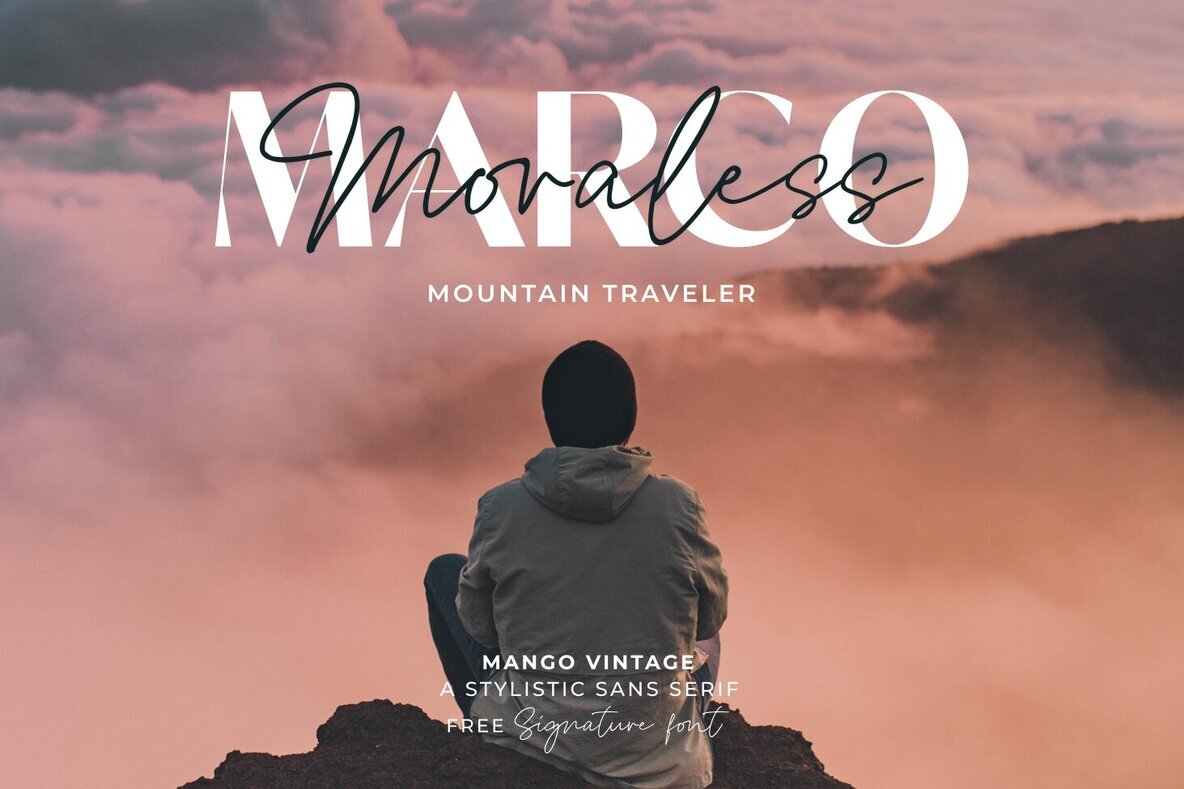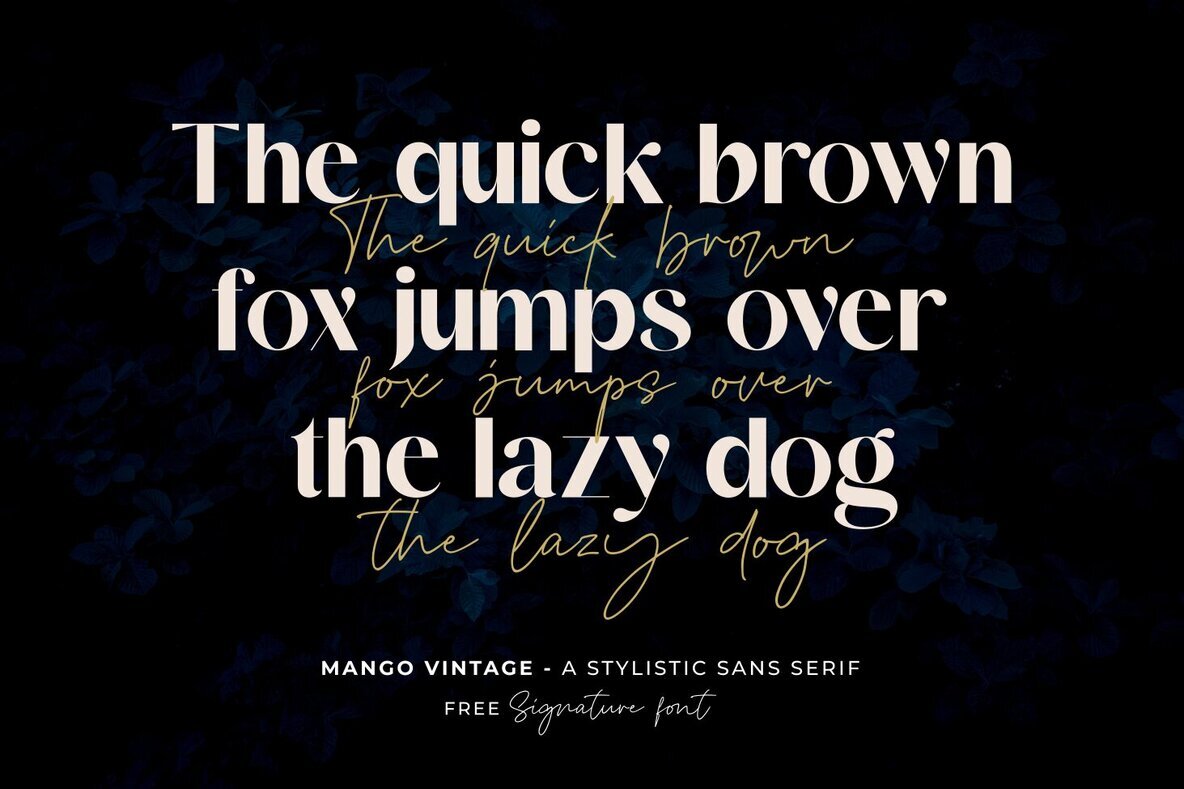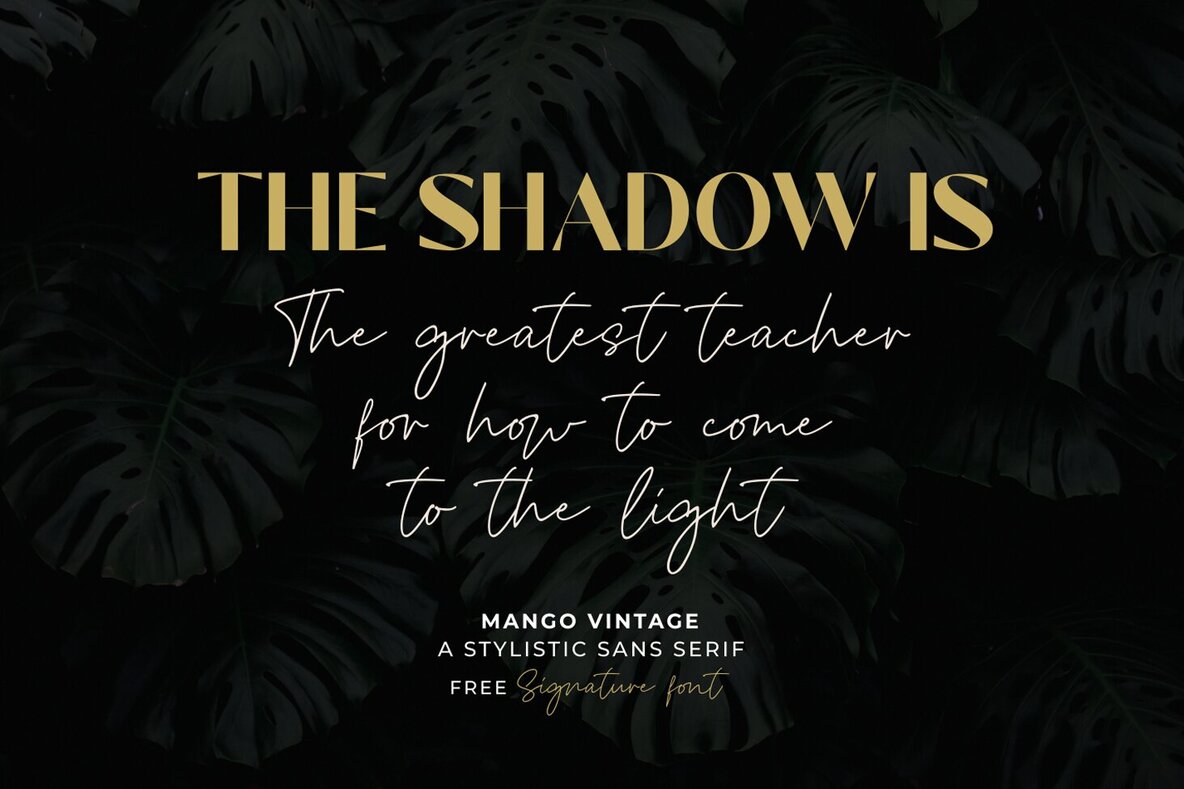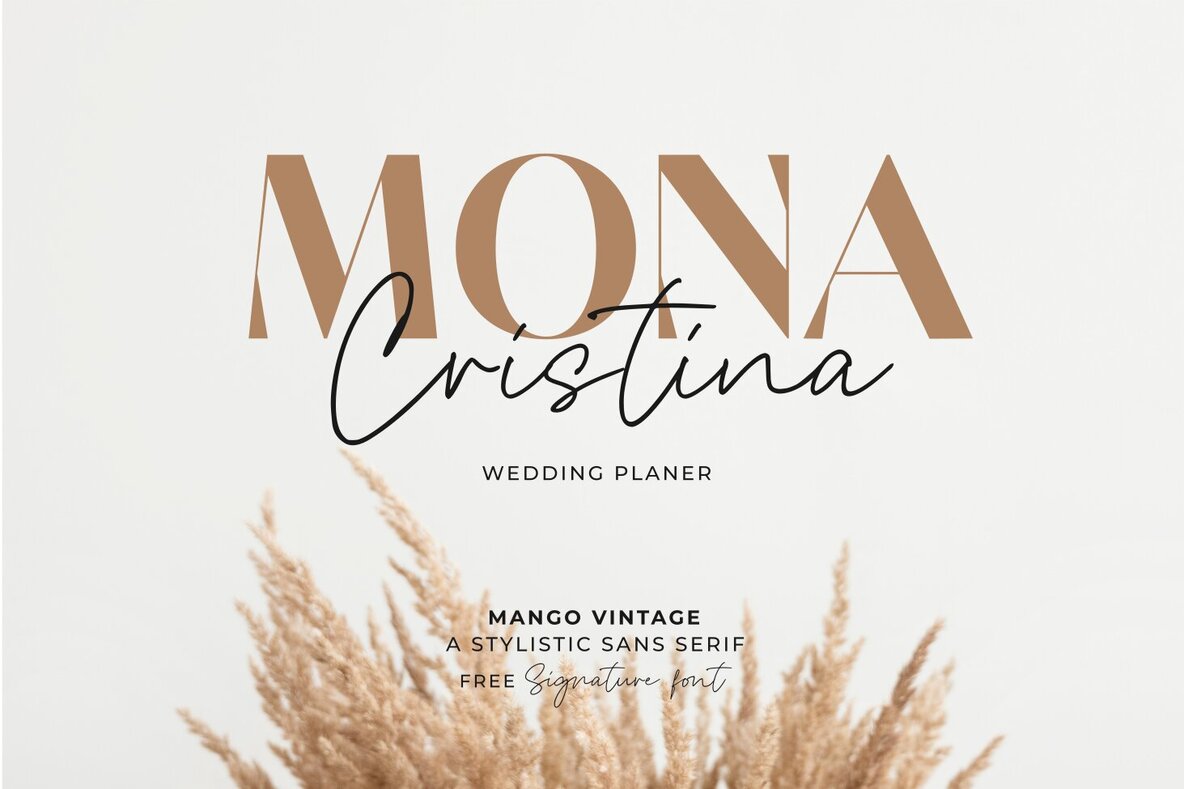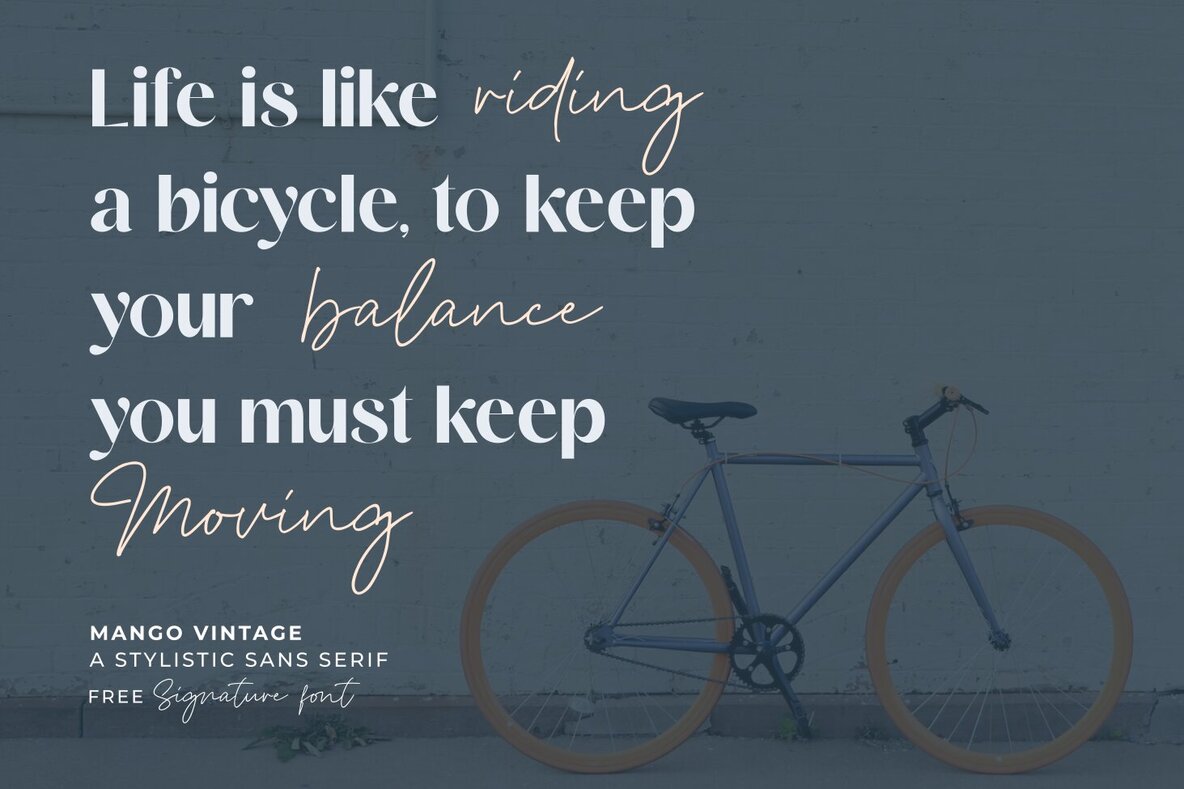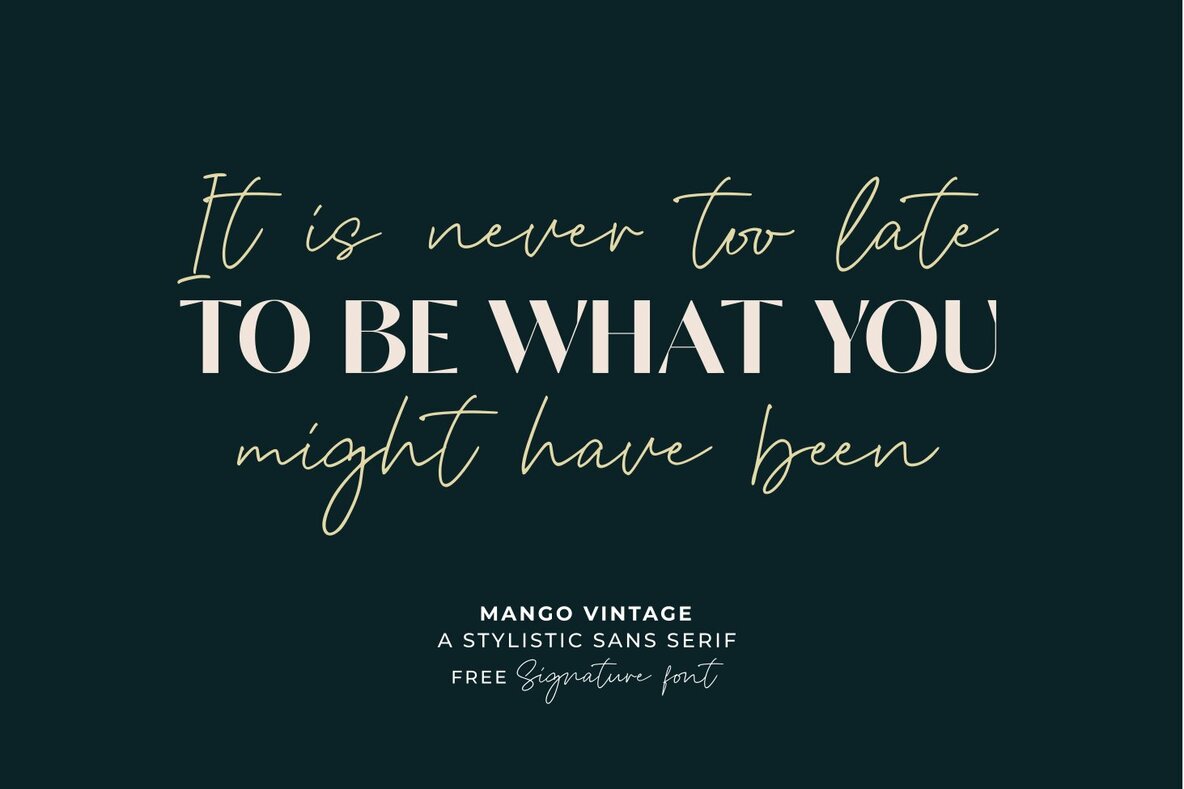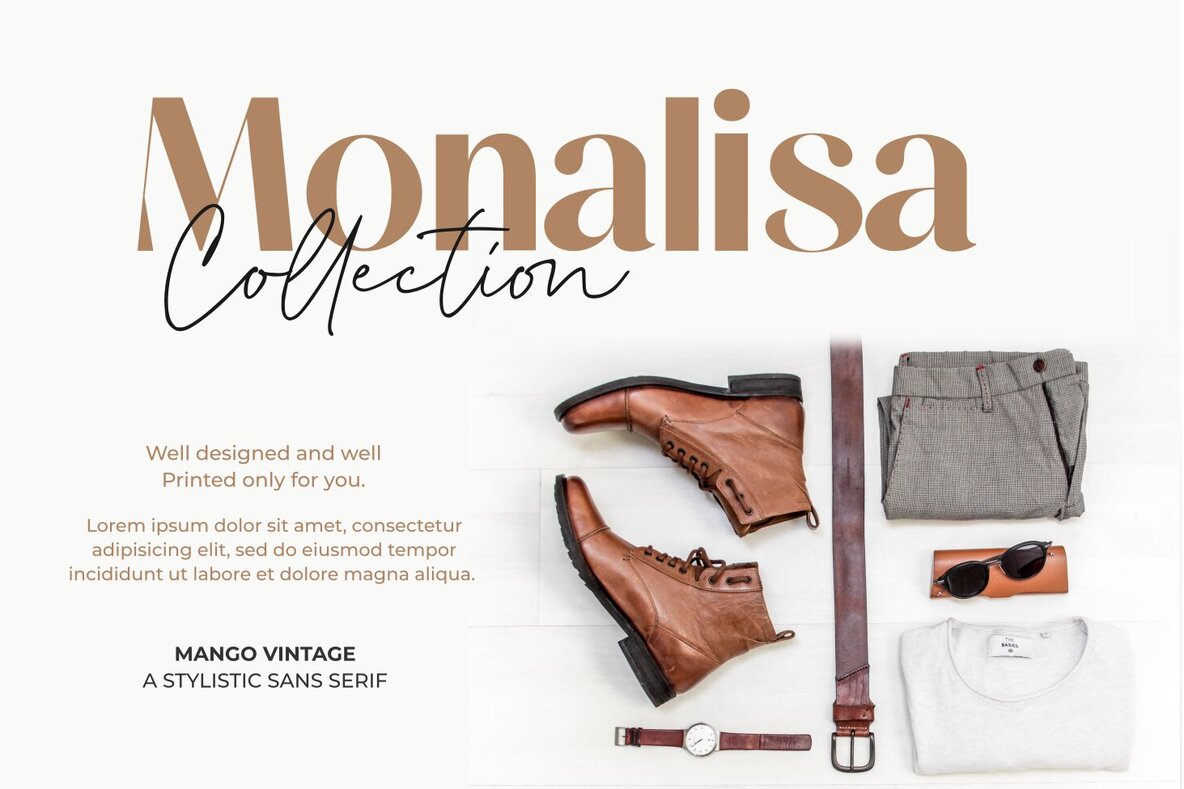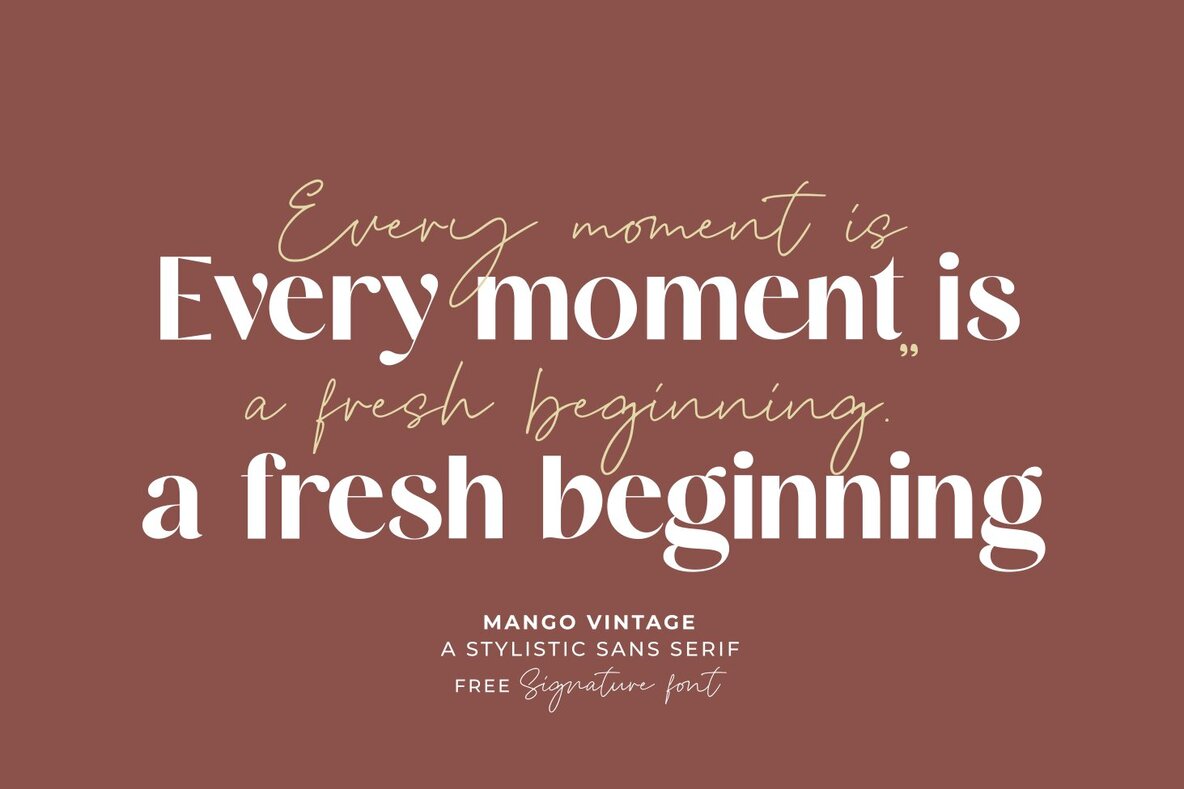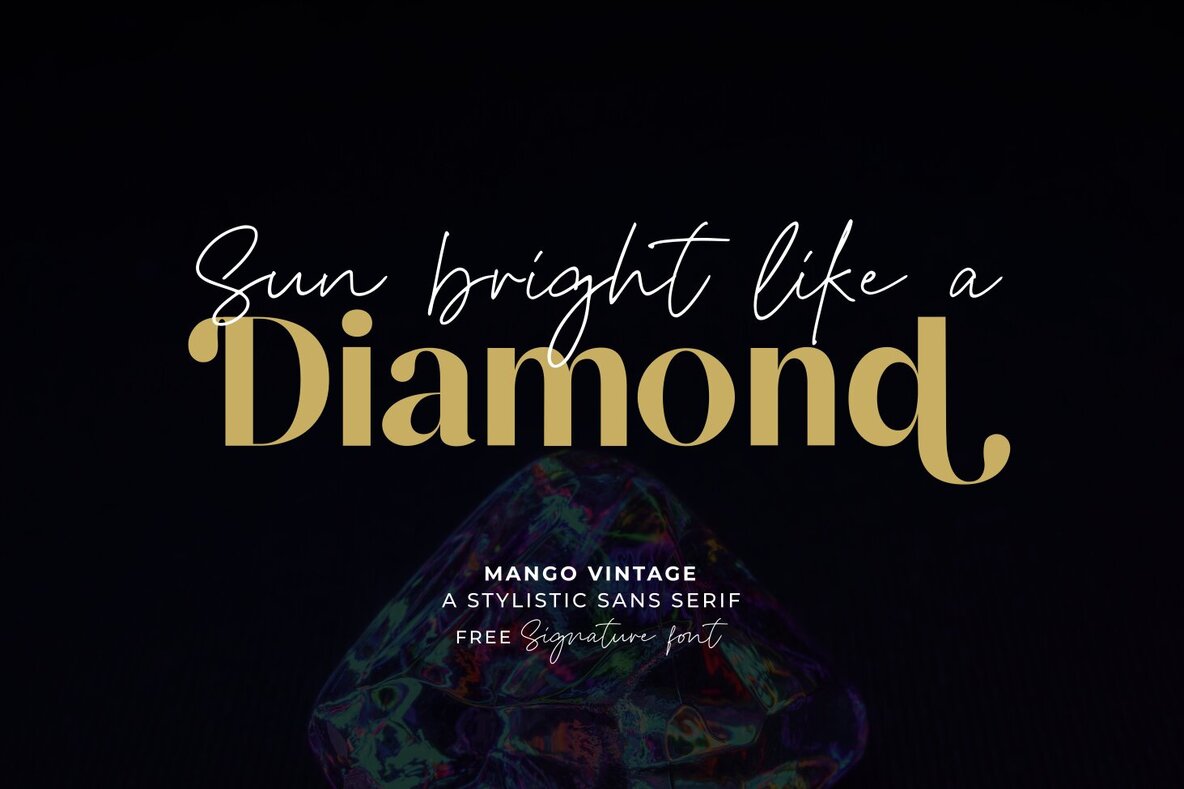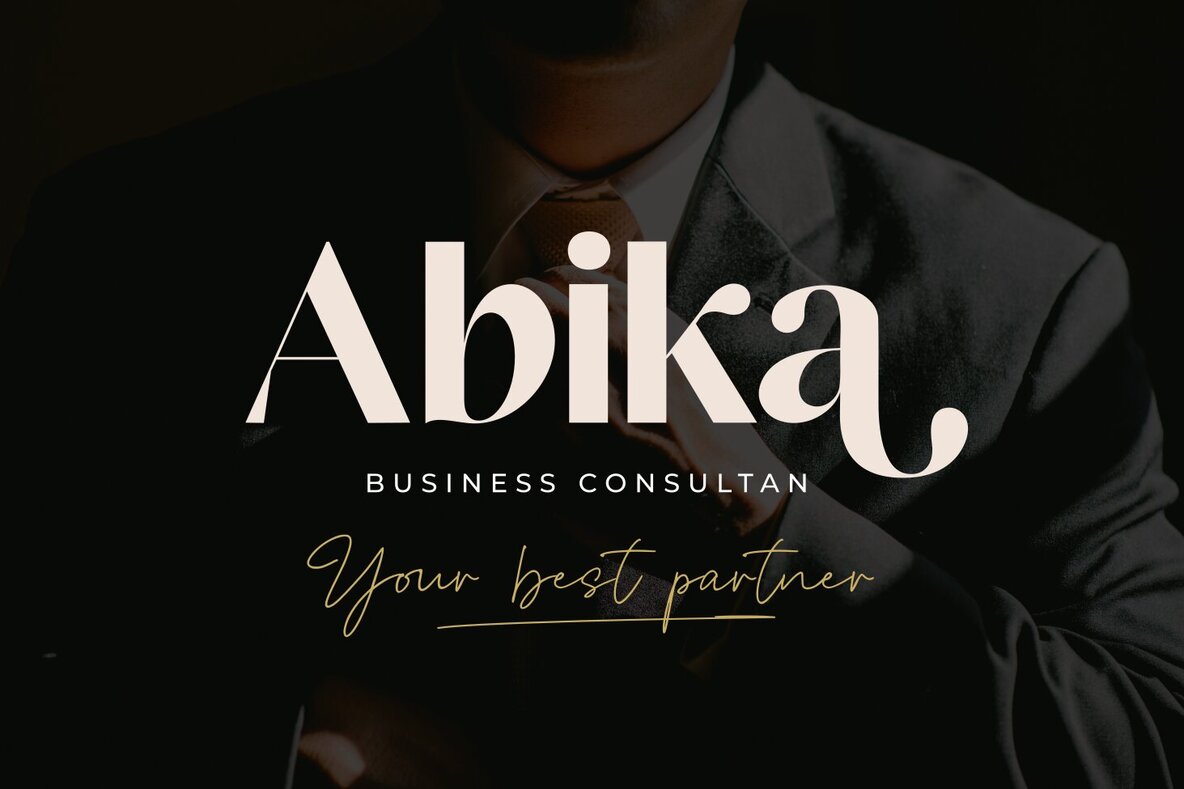
Mango Vintage Font
Mango Vintage by Zeenesia Studio offers a sleek and elegant sans serif design, perfect for a variety of applications. This versatile font is ideal for advertising, branding, logotypes, packaging, titles, headlines, and editorial design. With numerous alternates and natural ligatures, Mango Vintage adds a touch of class and beauty to any project. The font is equipped with OpenType features, ensuring that your designs stand out with perfection. For instructions on accessing alternate glyphs and utilizing OpenType features, visit .... Your feedback is important to us. Please feel free to share your thoughts or any questions you might have. Thank you for choosing Mango Vintage. We’re delighted to support your creative projects!Mango Vintage: A Modern Sans Serif with Elegant Flair